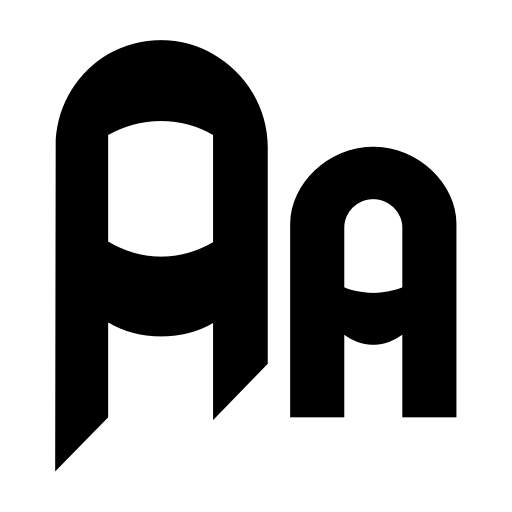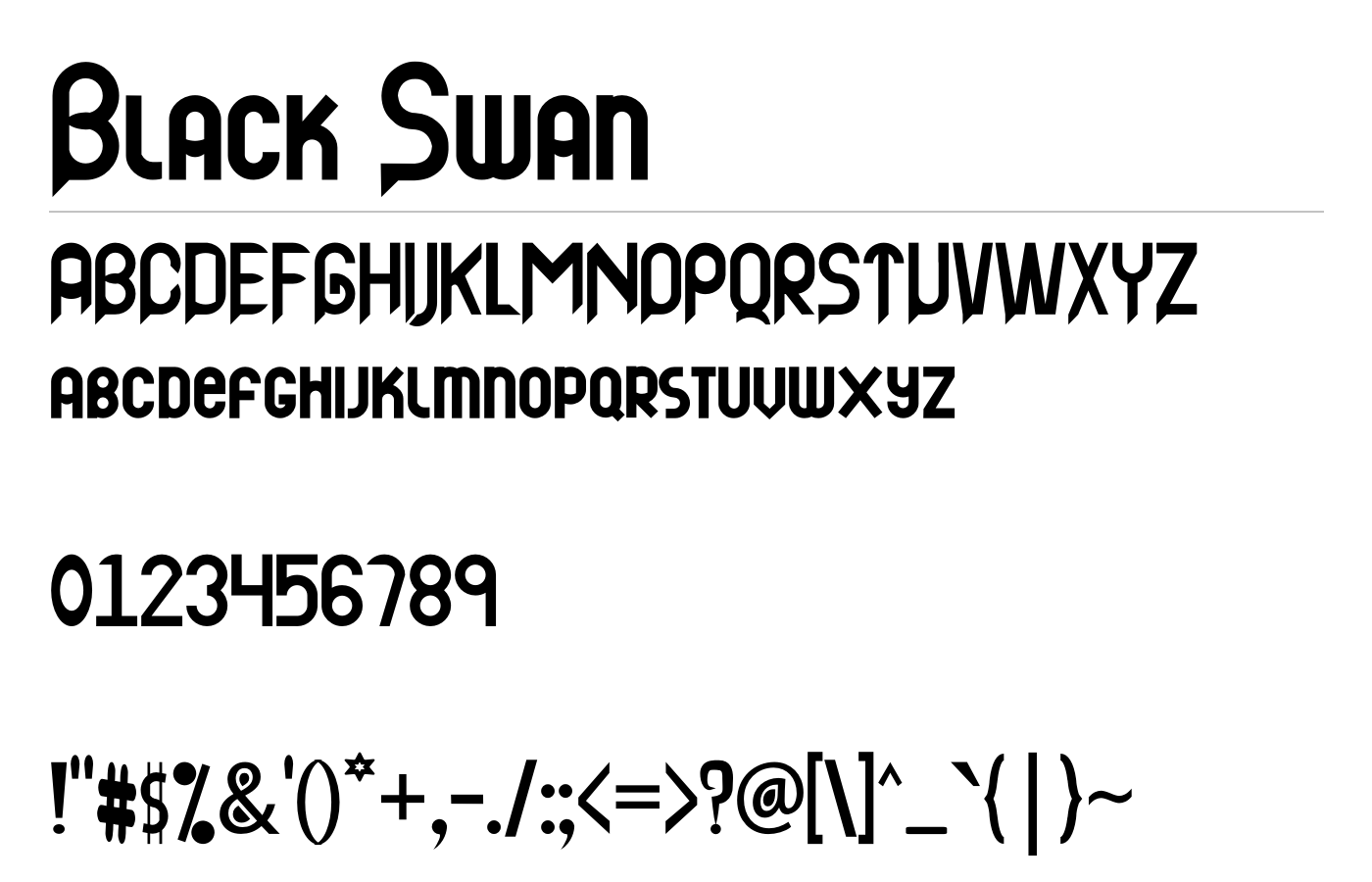
Black Swan is a bold, geometric sans serif font with unique angular cutouts that give it a striking and modern look. Its tall, narrow characters with decorative sharp edges make it stand out, ideal for creative branding, headlines, and logos where a distinct, edgy style is desired. This font communicates a confident, artistic vibe perfect for contemporary and stylish design projects.
Black Swan Font